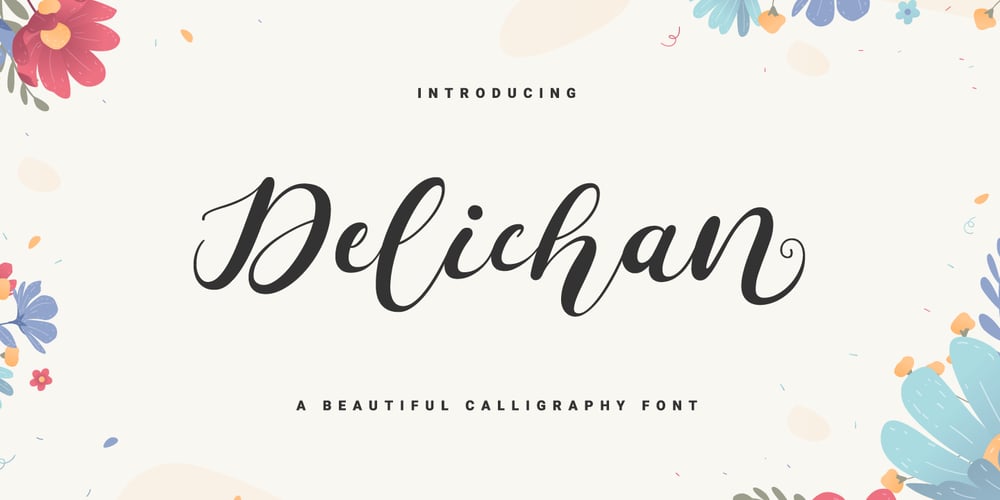
Delichan
Delichan font
Delichan Font Family was designed by Prio Nurokhim Aji and published by Prioritype. Delichan contains 1 styles and family package options. Introducing.Delichan: Beautiful and modern fonts that are so special to use in your projects. It is suitable for wedding invitation designs, social media posts, blogs, crafts, quotes etc. Features: Uppercase, Lowercase, Numeral, Punctuation, Multilingual, Ligature, Alternates & PUA Encoded.Thanks!